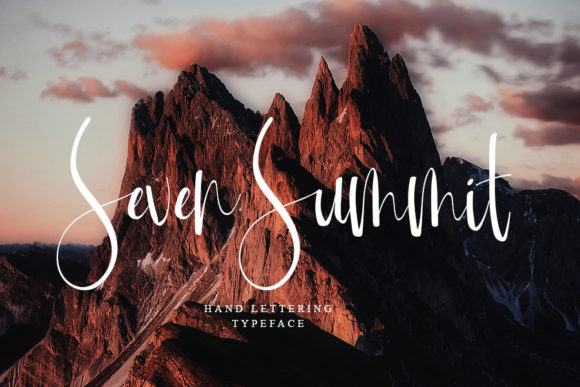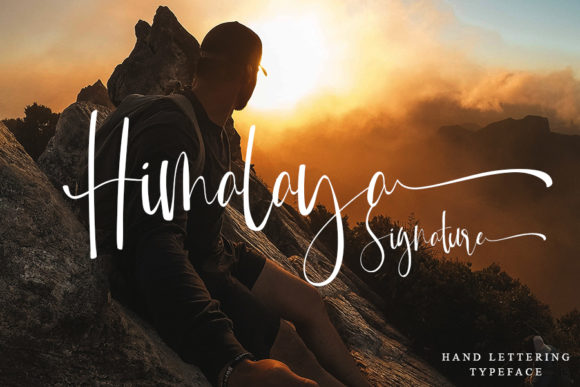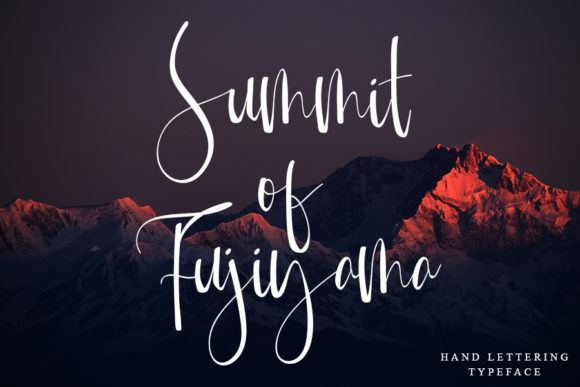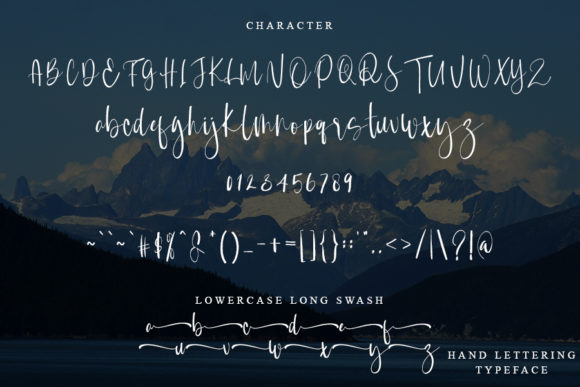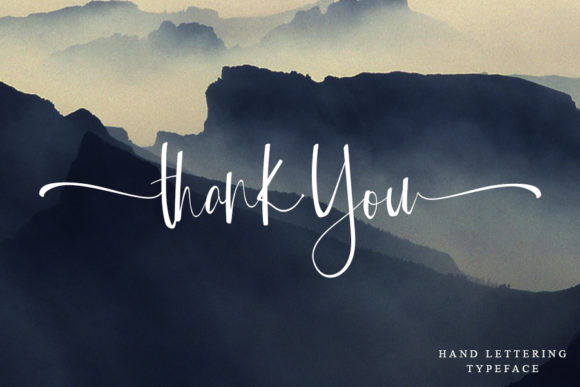
Introduction to Mountain of Journey Font
Have you ever stared at a blank page, wondering where to start your next creative project? The blank canvas can be intimidating, but sometimes all it takes is the right tool to spark inspiration. For designers, the perfect font can be the difference between a great project and a truly unforgettable one. This is where the Mountain of Journey Font comes in – a modern and stylish script font that’s sure to elevate any design.
With its clean, thin, and smooth vibe, the Mountain of Journey Font is a high-quality design resource that’s perfect for any creative project. Whether you’re working on a free download or a paid project, this font is sure to add a touch of elegance and sophistication. Plus, its transparent background makes it easy to layer with other design elements.
But what really sets the Mountain of Journey Font apart is its ease of use. PUA encoded, this font allows you to access all of the glyphs and swashes with ease, giving you complete creative control over your design. So why wait? Dive into the world of the Mountain of Journey Font and discover a new level of design possibility.
Key Features of Mountain of Journey Font
- High-quality design resource with a unique, hand-drawn style, perfect for creative projects.
- Features a transparent background, making it easy to use in any design context.
- Designed with a bold, adventurous feel, making it ideal for use in outdoor-themed designs, travel projects, and more.
Honest Review: Mountain of Journey Font
One of the things that stands out about this font is its high quality. The characters are well-designed and visually appealing, making it perfect for a creative project that needs a bit of flair.
- ✨ High-quality characters with a unique design aesthetic
- ✨ Transparent background, allowing for easy editing and customization
- ⚠️ Limited character set, which may not be suitable for longer texts
- ⚠️ Not suitable for formal or professional projects, due to its creative and playful design
Overall, I’m impressed with the Mountain of Journey Font. While it may have some limitations, it’s a great addition to any designer’s toolkit. I’d recommend it for creative projects or as a design resource for inspiration.
The Mountain of Journey Font is perfect for use in travel brochures, adventure-themed designs, and any project that requires a sense of journey and exploration. Its high-quality design and transparent background make it a versatile font for a wide range of creative projects.